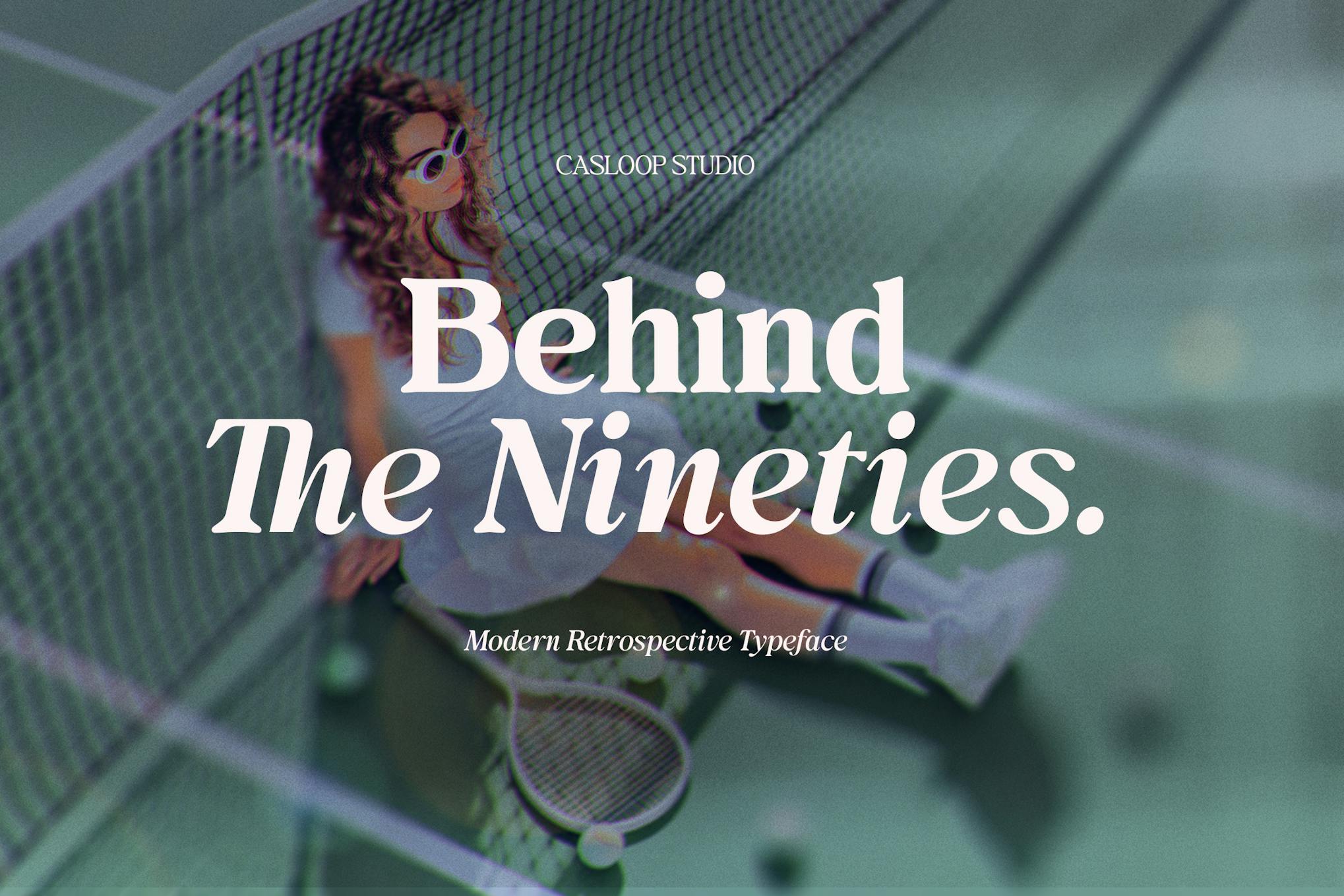
Behind The Nineties - 90s 80s Perfectly Retro Font
Behind The Nineties - 90s 80s Perfectly Retro Font is ideal for nostalgic branding projects, vintage poster design, retro gaming graphics, throwback music covers, 80s-themed events, synthwave aesthetics, retro fashion campaigns, nostalgic merchandise design, and authentic period typography applications.
What makes Behind The Nineties - 90s 80s Perfectly Retro Font exciting is its authentic period character that perfectly captures the bold, energetic spirit and distinctive aesthetic of the iconic 80s and 90s decades. This dynamic typeface features characteristic geometric forms, vibrant personality, and nostalgic details that instantly transport viewers back to the golden age of neon lights, synthesizers, and digital revolution. The font's electrifying energy and period-perfect authenticity make it ideal for brands that want to tap into powerful nostalgia and communicate fun, excitement, and retro-futuristic vision through typography that celebrates cultural history.
Behind The Nineties - 90s 80s Perfectly Retro Font family includes multiple decade variations: Regular, Bold, Light, Neon, Chrome, Shadow, and Outline versions. Each style maintains the distinctive retro aesthetic while offering different visual effects and period-appropriate treatments, providing designers with comprehensive tools for creating authentic 80s-90s typography systems and nostalgic design applications.
Creative professionals choose Behind The Nineties - 90s 80s Perfectly Retro Font for its ability to convey nostalgia and period authenticity through typography alone. The characteristic forms and energetic personality create instant recognition and emotional response that connects with viewers' memories. Its retro character works beautifully across diverse applications from intimate product packaging to large-scale entertainment graphics.
The comprehensive character set includes period-appropriate symbols, retro elements, and extensive multilingual support that enhances the nostalgic aesthetic. Behind The Nineties - 90s 80s Perfectly Retro Font Free Download enables designers to experiment with neon effects, retro combinations, and authentic period applications before purchasing.
Whether used for retro brand development or contemporary throwback campaigns, Behind The Nineties - 90s 80s Perfectly Retro Font consistently delivers authentic period typography that resonates with audiences seeking genuine nostalgia, cultural connection, and the timeless appeal of iconic design decades.